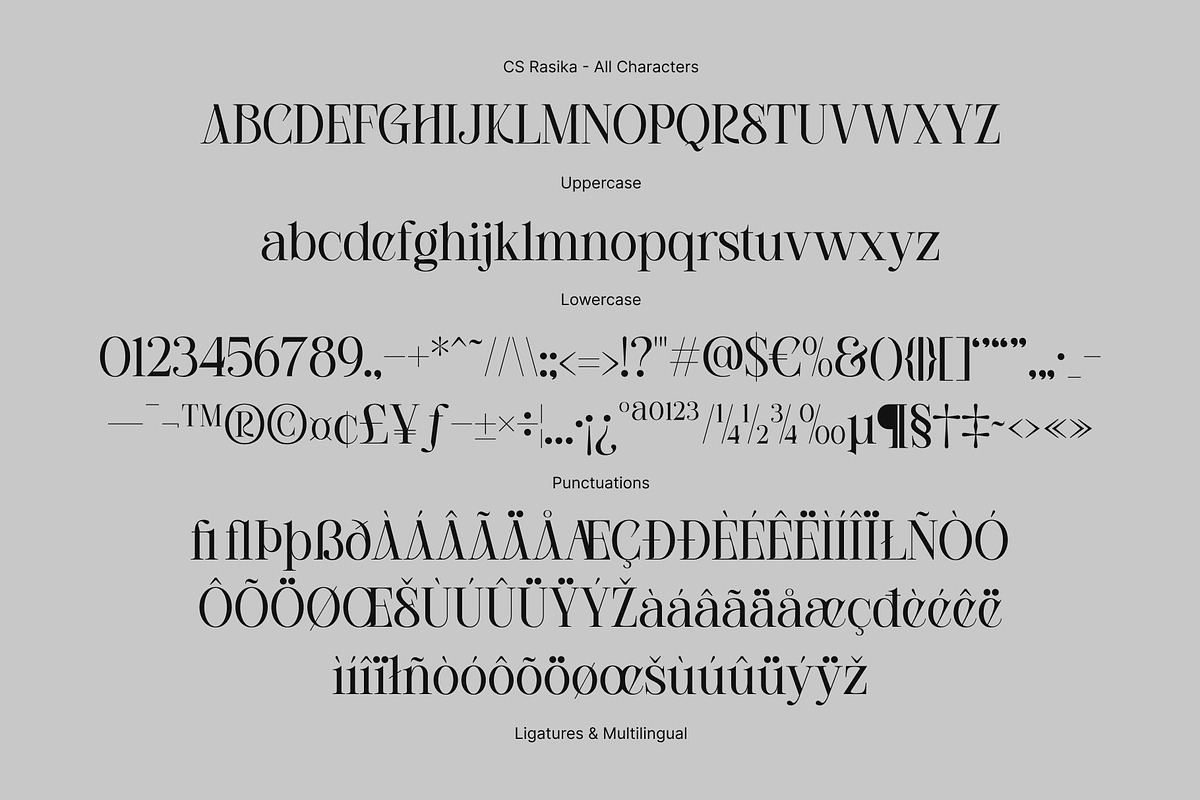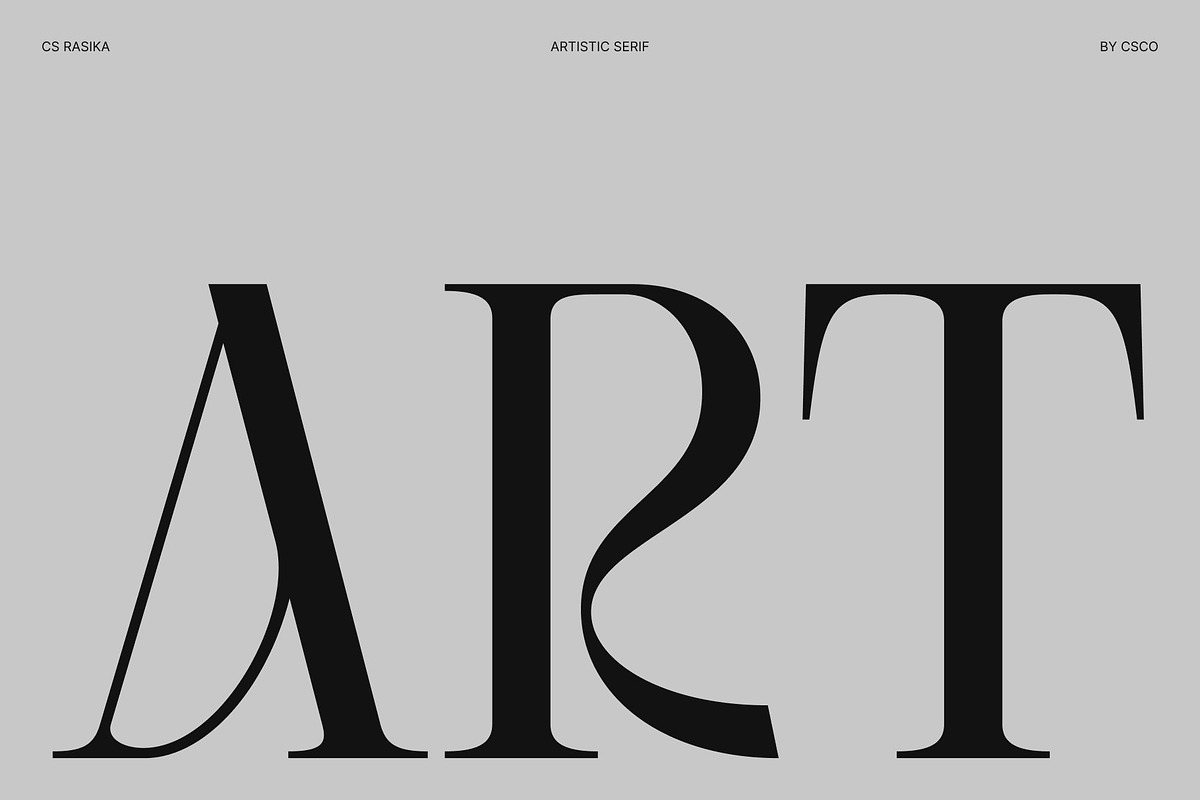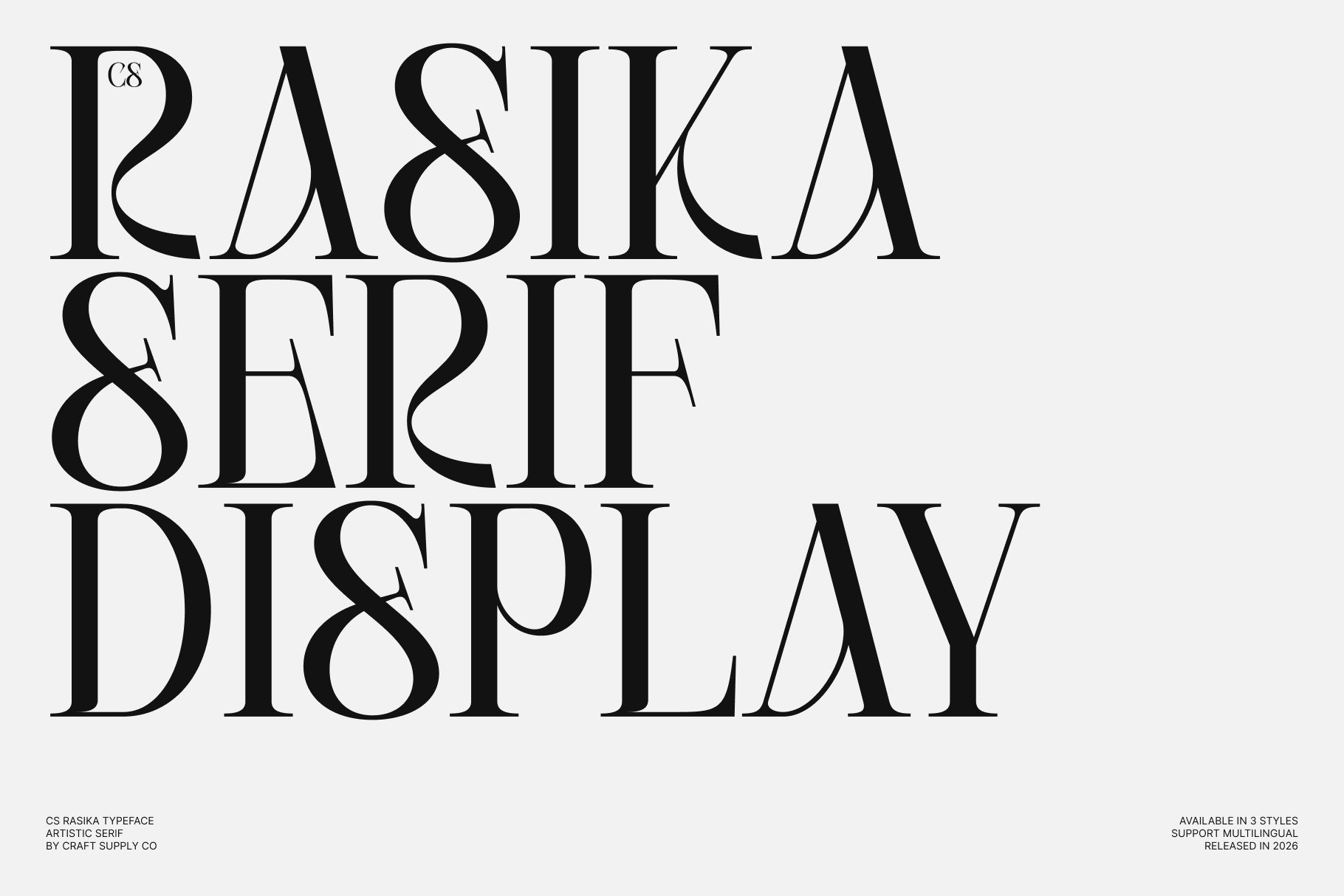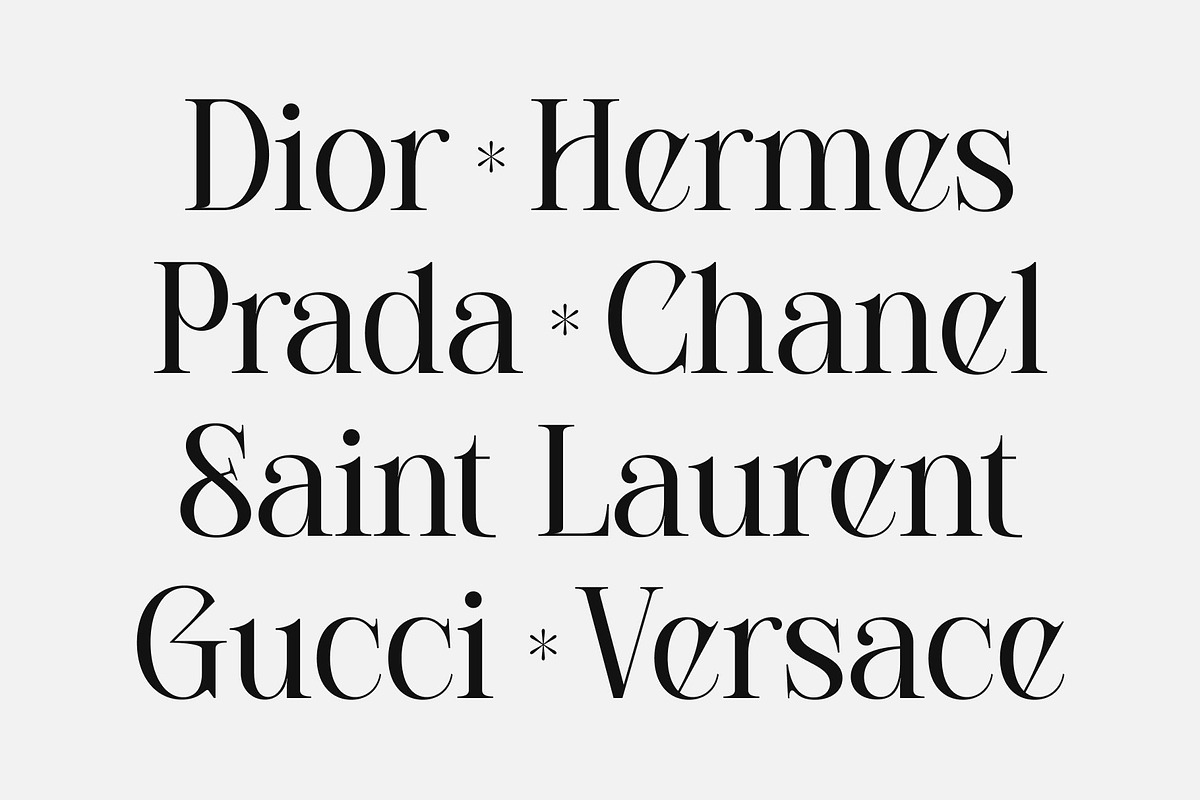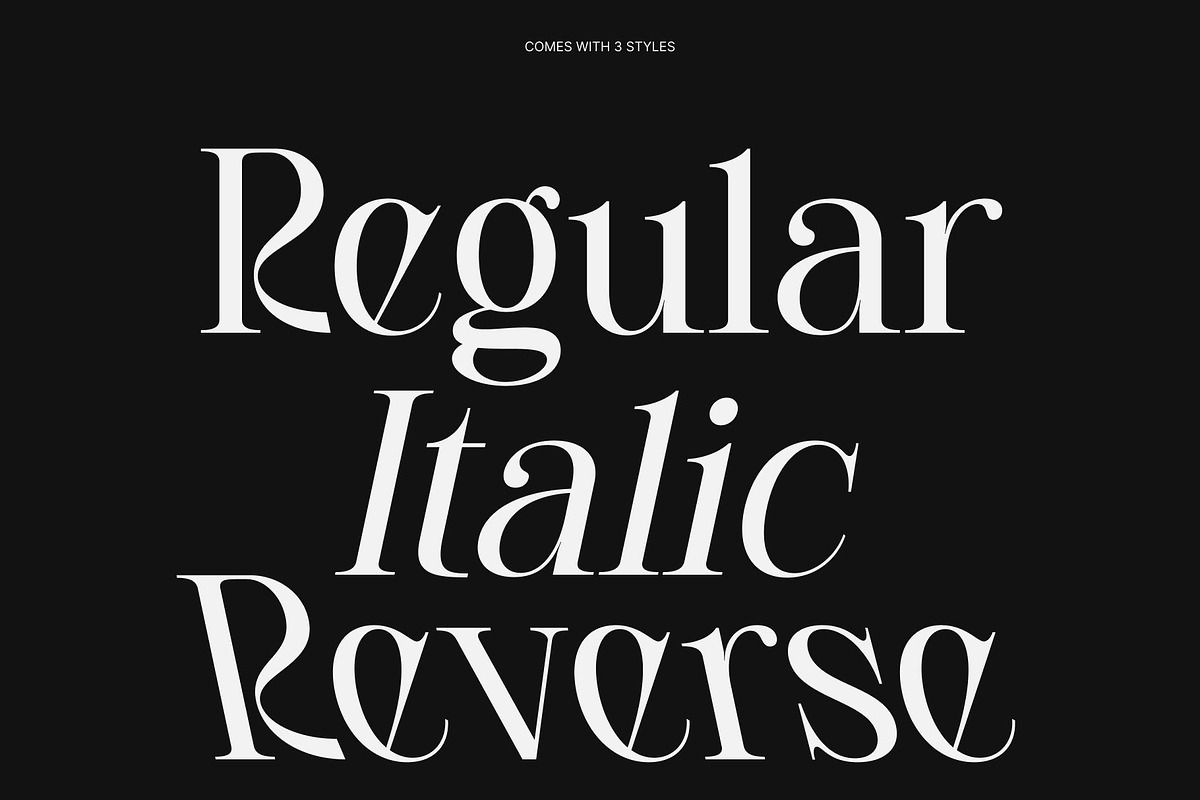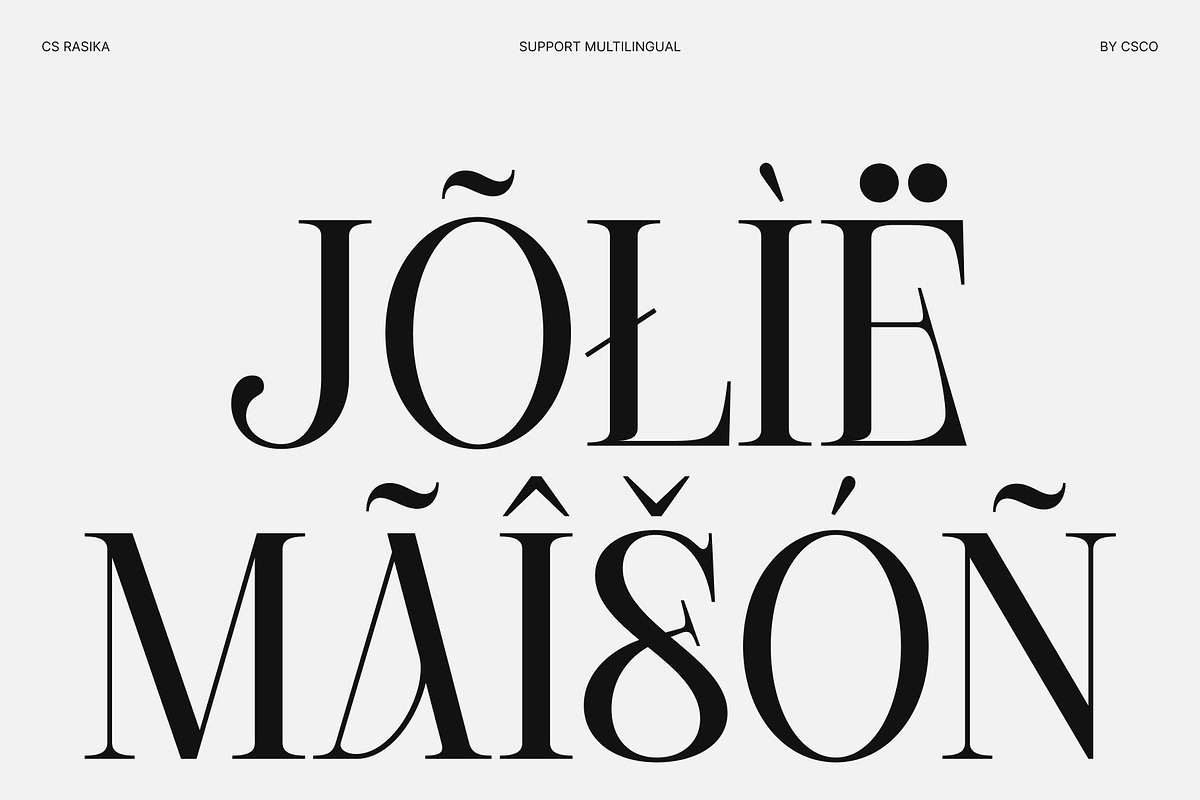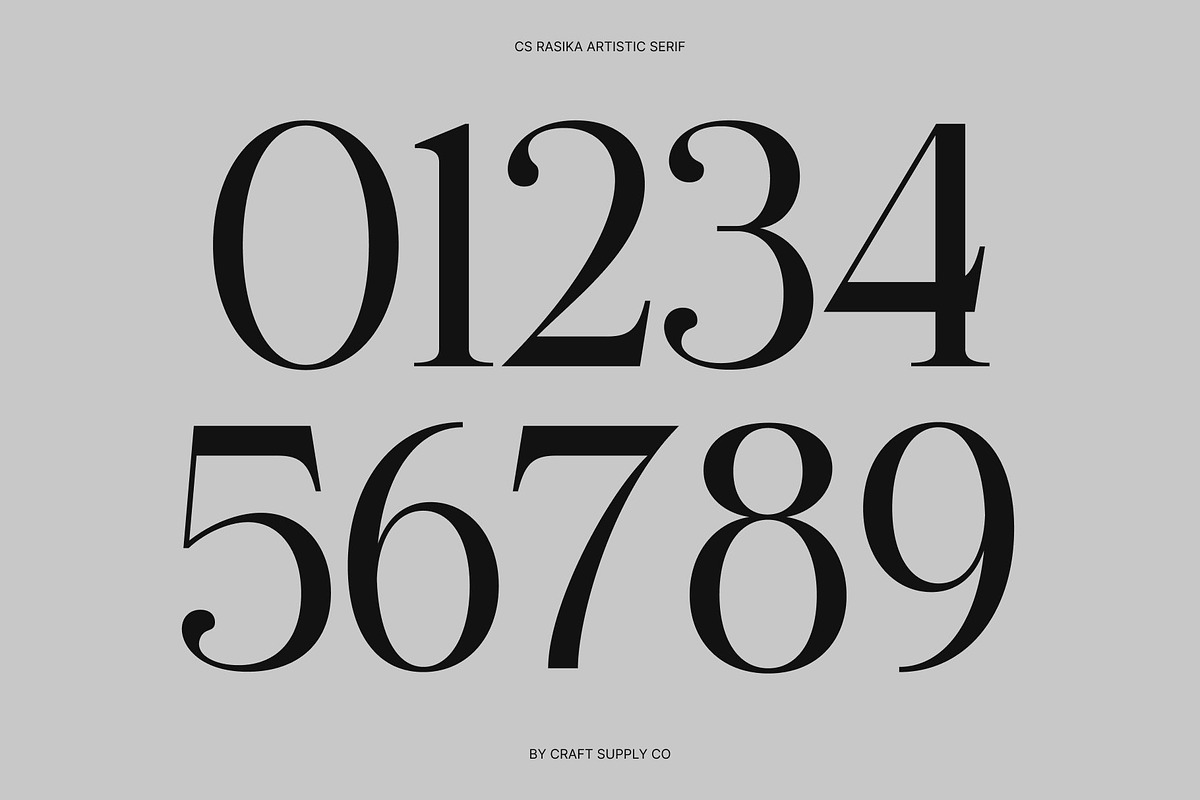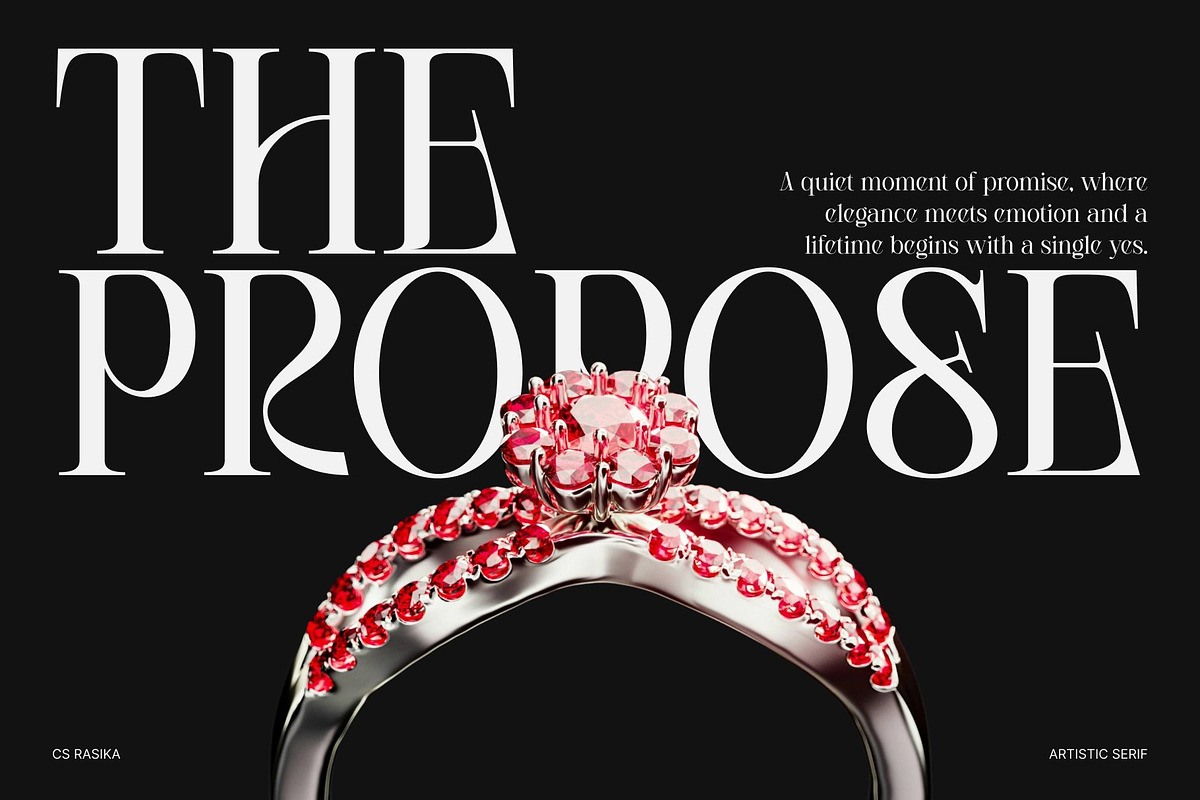
Rasika – Elegant Serif Font
CS Rasika – Elegant Serif with Timeless High-Contrast Beauty
Elegant Serif with Refined Curves This is an elegant serif font designed to express sophistication through graceful curves and polished proportions. Every letterform feels carefully sculpted, creating a refined visual rhythm that immediately communicates luxury and professionalism. This typeface blends classic inspiration with modern precision, making it a powerful choice for designers seeking timeless elegance.
High Contrast for Artistic Expression Built on a high-contrast structure, this font delivers dramatic thick-to-thin transitions that bring depth and personality to every word. This contrast enhances readability while adding a sense of artistry and movement, allowing headlines and editorial compositions to feel expressive and visually rich. The result is typography that feels both classic and strikingly contemporary.
Timeless Style for Editorial Excellence This font shines in long-form typography and refined layouts. Its balanced structure supports comfortable reading while maintaining a sophisticated aesthetic that elevates the overall design. Whether used for book typography, magazine spreads, or luxury publications, the font delivers a polished tone that feels authoritative and graceful.
Perfect for Branding, Packaging, and Publishing From high-end packaging to premium branding and advanced editorial design, this font offers versatility without sacrificing elegance. Its timeless character ensures your work feels refined, artistic, and memorable across print and digital platforms, making it a dependable choice for projects that demand lasting sophistication.
CS Rasika Regular
CS Rasika Italic
CS Rasika Reverse Italic